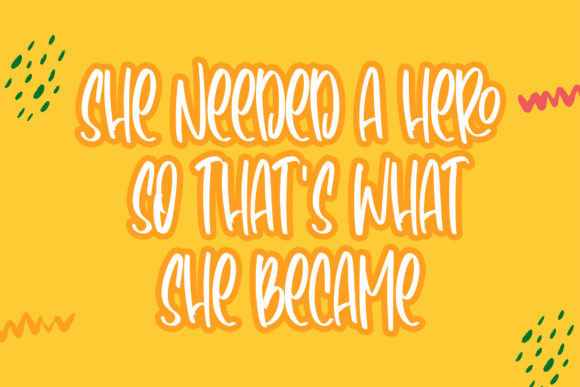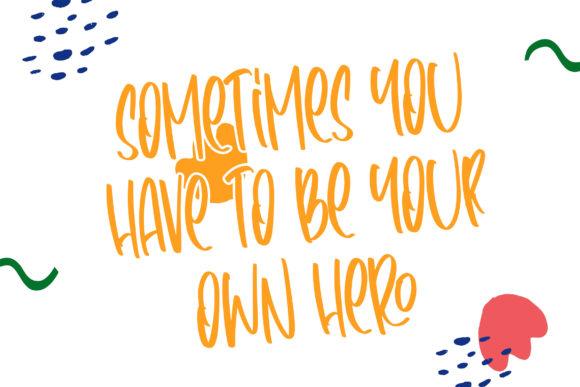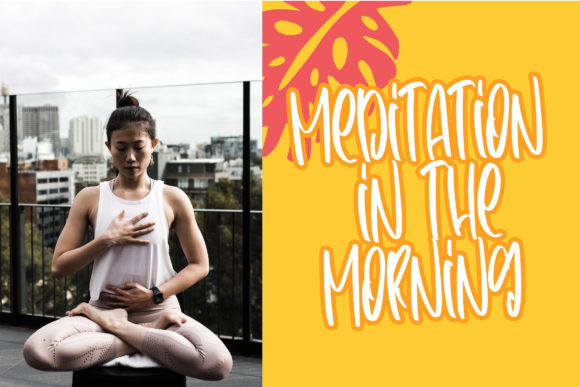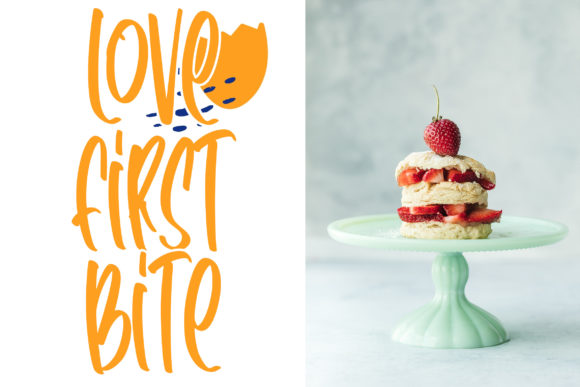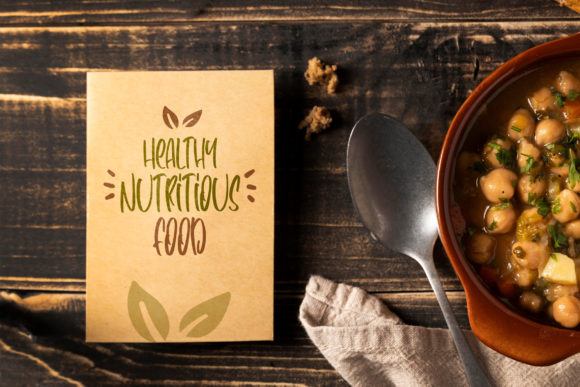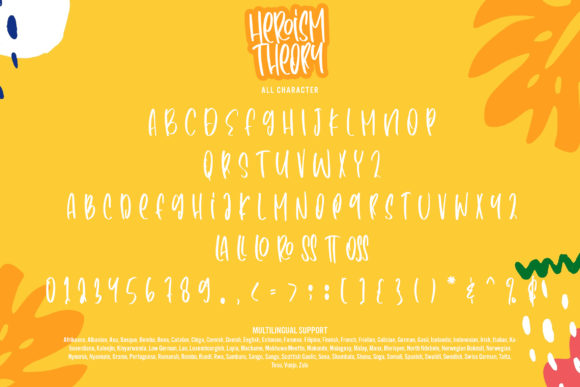
Heroism Theory Font
About Heroism Theory Font
Heroism Theory is a fun and friendly display font, that can easily stand out. Simple but with a strong visual effect, this font will instantly make your creation more appealing than any others.